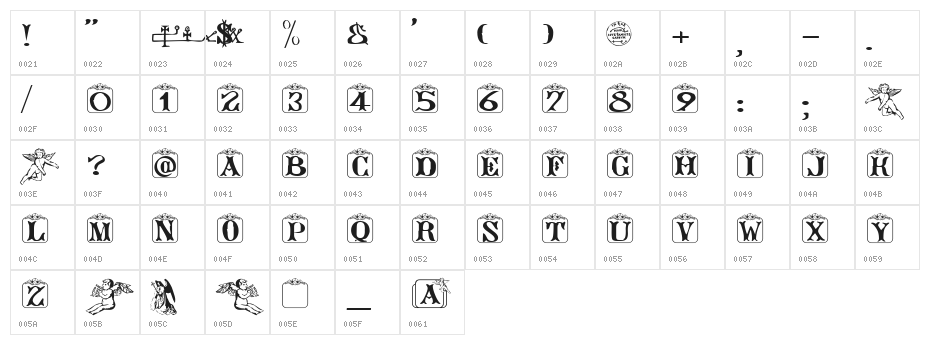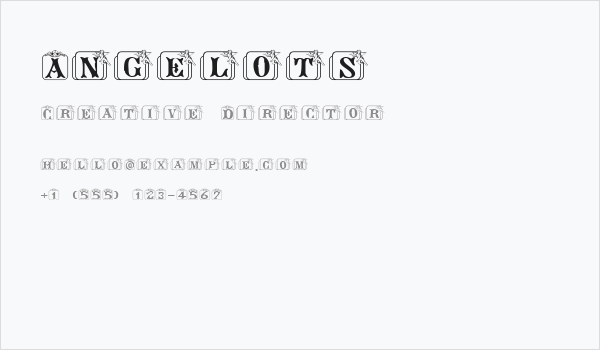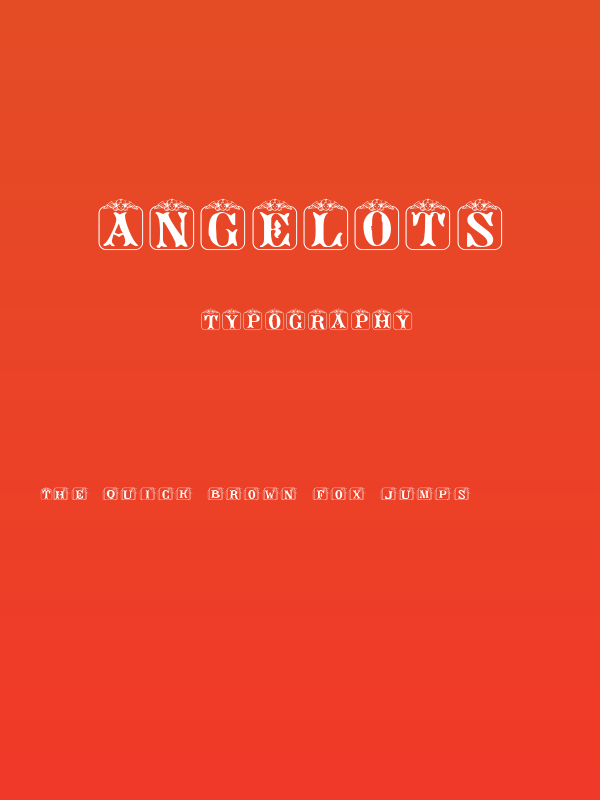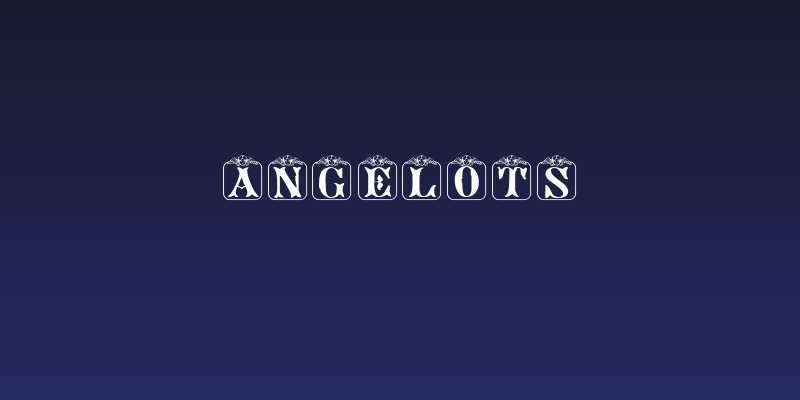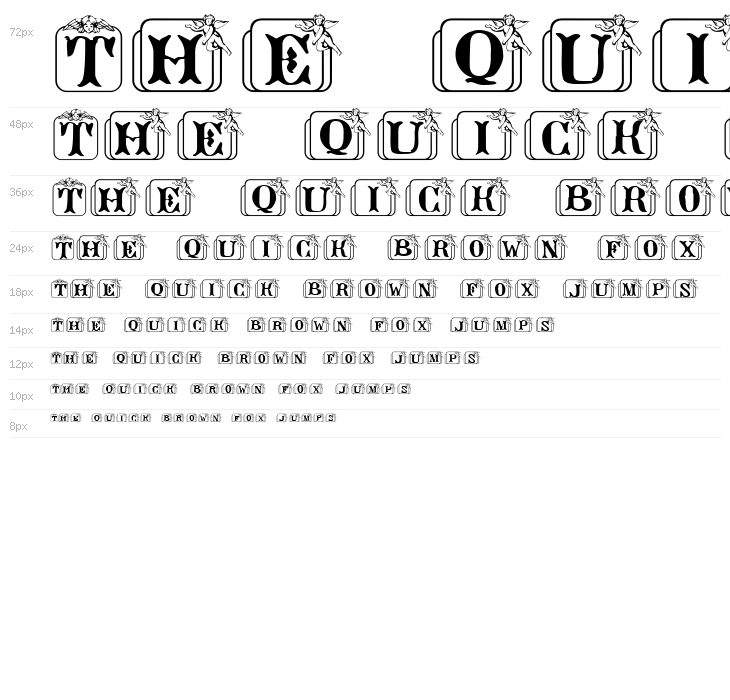
Angelots Font
| Gesamtstil | Vintage, Decorative |
| Anwendungsfall | Headlines, Logos, Decorative text |
| Vorgeschlagene Projekte | Ideal for wedding invitations, vintage-themed posters, book covers, and branding that requires a classic and sophisticated look. |